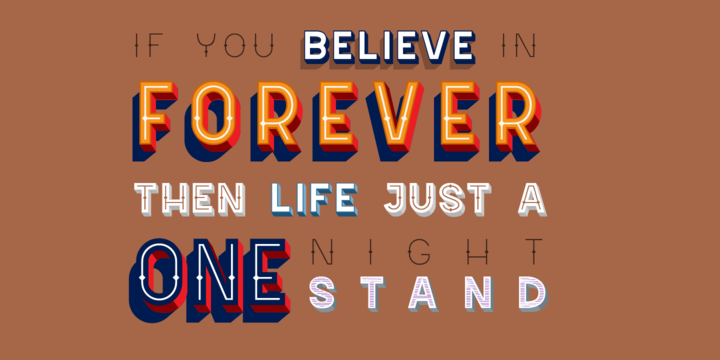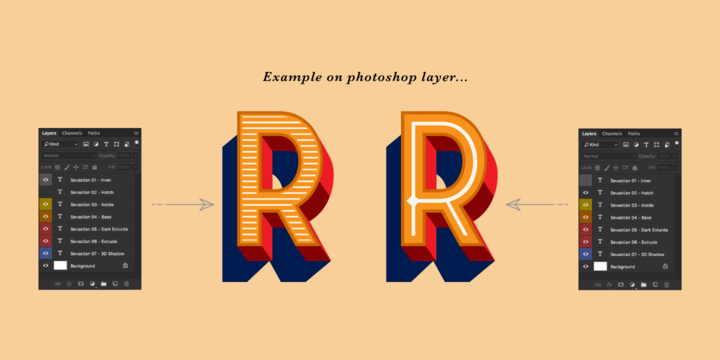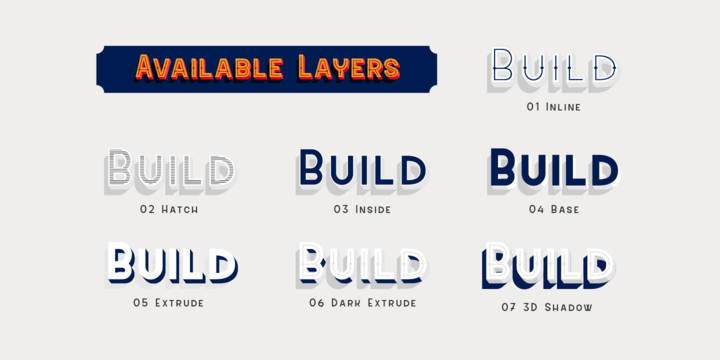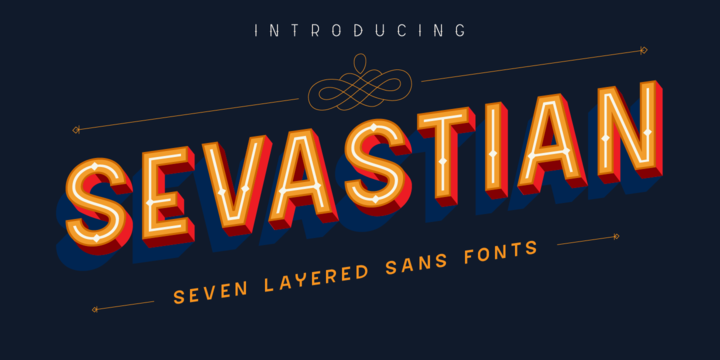
S E V A S T I A N - Seven Layered Fonts Sevastian Typefaces are coming for help the artist who want to create 3D lettering without special effects.
Also you can use with different color, different style, and different combinations using 7 layer I've made.
Font Naming are important for you to generate where at the top and where at bottom.
Sevastian made it so easy because there is a number before the name like Sevastian - 01 inner until Sevastian - 07 3D Shadow.
It means, the lowest number are must on top of them. As you can see on the display image I've been made, I use random combinations. So you can experiment what do you like most.